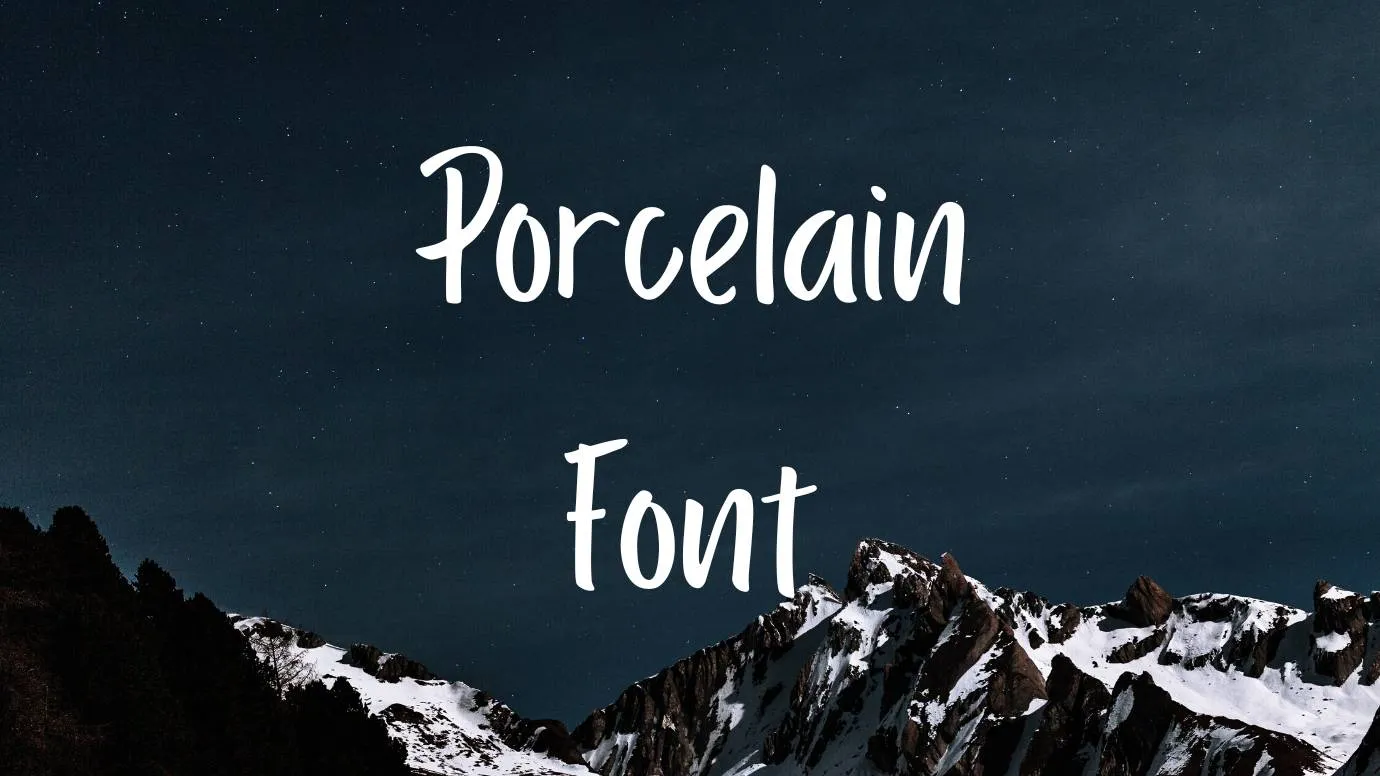
Font Introduction
Porcelain Font Family lies in the category of the script brush font family. Rian Rahardi is the main designer of this unique typeface. Creatype Studio is the publisher of this typeface. It is best for pairing with a gorgeous typeface that is similar to this texture like friday vibes font. This unique texture has a free generator tool, where you can change all normal types into stylish shapes.
Features of Porcelain Font
- This tremendous font is perfect for creating posters, social media posts, wall murals designs, greeting card designs, and so on for related design purposes.
- This typography is suitable for symbol designs, product packaging, and booklet design purposes. It is great for use in stationery designs, printed clothes designs, and so on.
- You can use this unique font for creating watermark logo designs, brochure layout designs, and magazine designs.
- You can use this font for contemporary assignment designs, note designs, and invoice design purposes. It is good for making office card designs, greeting card designs, gift card designs, and many others.
Is Porcelain Font an old font?
Of course, it is an old font and it comes with unique features. This font family has a wide range of popularity in the design marketplace.
Is Porcelain Font Worth Using?
Yes, the Porcelain typeface is worth using because that has many uses. The most helpful features and uses of this font are available in the reason to use section.
Who is the designer of the Porcelain Font?
Creatype Studio is the main designer of this unique font that comes in the script font family with unique glyphs and characters.